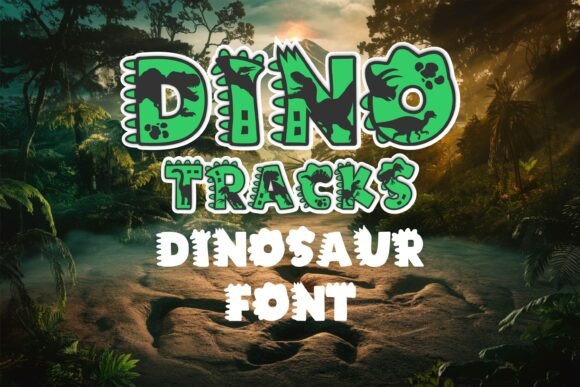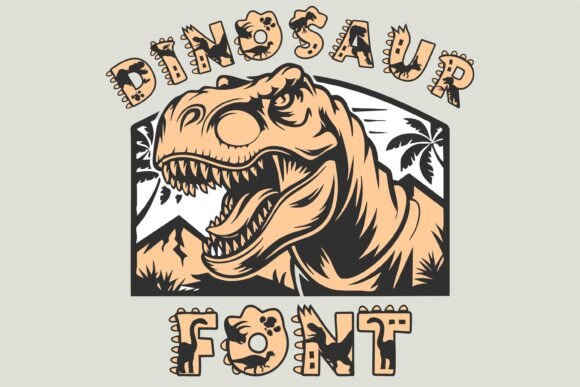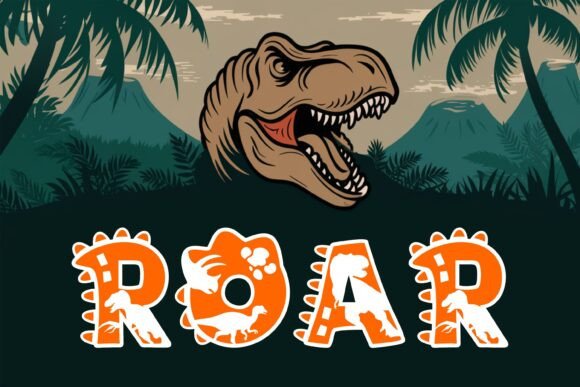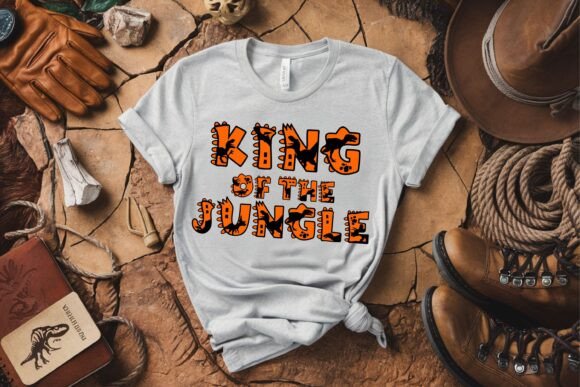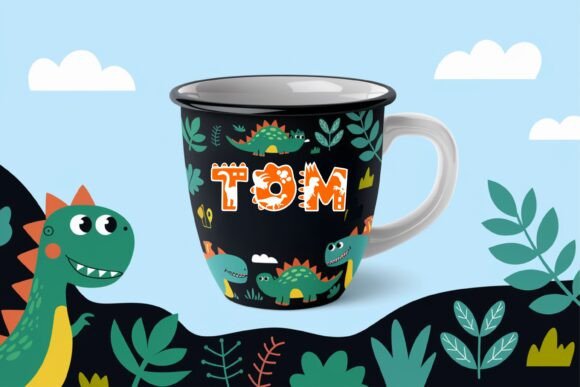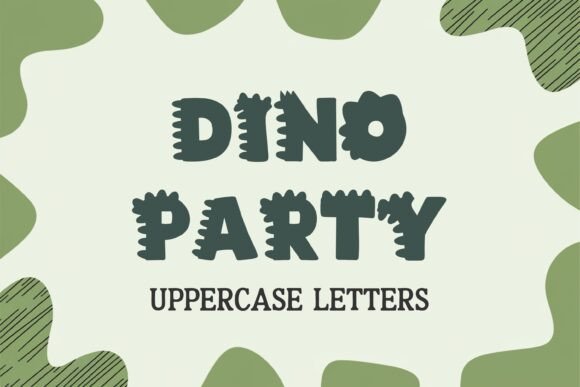
Dino Tracks Font: Unleash Prehistoric Creativity in Your Designs!
Are you ready to take your designs back to the Jurassic period? Look no further than the Dino Tracks Font Duo, a 2-in-1 prehistoric-inspired typeface that’s perfect for Cricut, Silhouette, and DIY crafting enthusiasts! This unique font duo is designed to bring the world of dinosaurs to life, with two distinct styles that will add a touch of prehistoric magic to your creations.
What’s Included in the Dino Tracks Font Duo?
The Dino Tracks Font Duo includes two exciting styles that work perfectly together to create layered designs, mixed typography, and eye-catching graphics. The first font features playful dinosaur silhouettes and fossil details, while the second font boasts a bold, spiky dino letter style. With these two fonts, you’ll have endless possibilities for creating unique and engaging designs that will leave a lasting impression.
Perfect for Kids’ Party Decorations and DIY Projects
The Dino Tracks Font Duo is ideal for designing kids’ birthday party decorations, adventure books, nursery prints, T-shirts, and custom projects. The playful dinosaur silhouettes and fossil details in the first font are sure to delight kids and adults alike, while the bold, spiky dino letter style in the second font adds a touch of edginess to your designs. Whether you’re a parent, teacher, or DIY enthusiast, this font duo is sure to inspire your creativity.
Key Features of the Dino Tracks Font Duo
- 2-in-1 font duo: Includes two distinct styles – playful dinosaur silhouettes and fossil details, and bold, spiky dino letter style
- Prehistoric-inspired: Features dino spikes, fossil imprints, and Jurassic-inspired textures
- Perfect for layered designs: Works well together for mixed typography and eye-catching graphics
Inspiration for Your Designs
Need some inspiration for your designs? Here are a few ideas to get you started:
- Create a dinosaur-themed birthday party invitation with the playful dinosaur silhouettes font
- Design a bold, eye-catching T-shirt with the spiky dino letter style font
- Make a set of nursery prints featuring dinosaur footprints and fossil details
- Develop a custom adventure book with illustrations and text in the Dino Tracks Font Duo
Why Choose the Dino Tracks Font Duo?
There are many fonts available for designers and crafters, but the Dino Tracks Font Duo stands out from the rest. Here are just a few reasons why:
- Unique and prehistoric-inspired: Adds a touch of excitement and adventure to your designs
- Versatile: Suitable for a wide range of projects, from kids’ party decorations to custom apparel
The Dino Tracks Font Duo is a must-have for designers and crafters who want to add a touch of prehistoric magic to their creations. With its two distinct styles, playful dinosaur silhouettes, and bold, spiky dino letter style, this font duo is perfect for a wide range of projects. Whether you’re designing kids’ party decorations, adventure books, or custom apparel, the Dino Tracks Font Duo is sure to inspire your creativity and take your designs back to the Jurassic period!